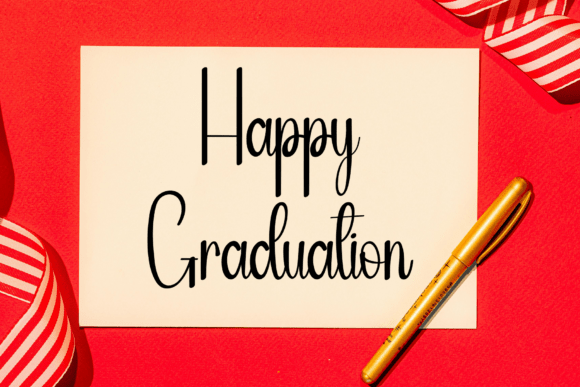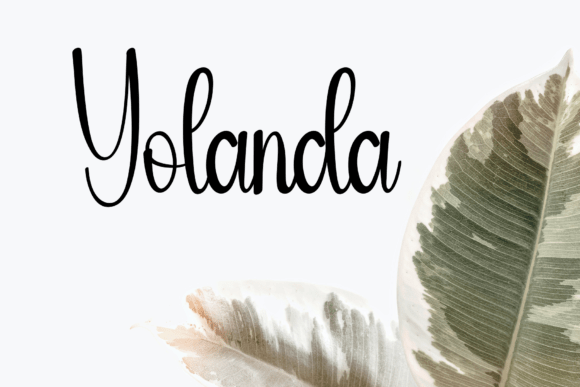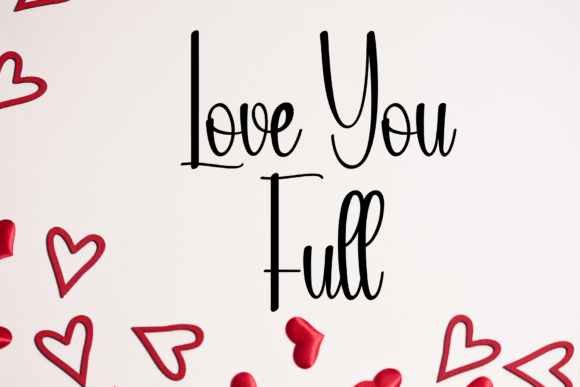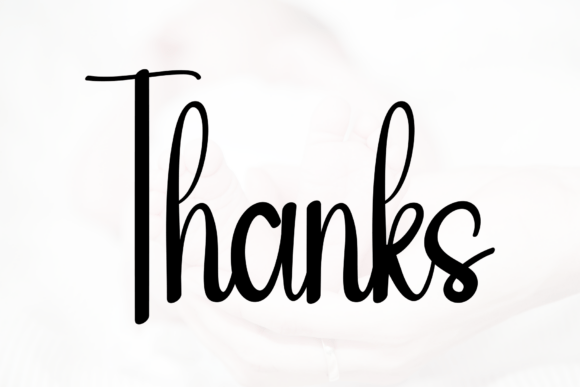
Introducing Blanket Font: The Ultimate Choice for Elegant yet Casual Designs
Are you a designer or crafter looking for a font that exudes a sense of luxury and elegance while still maintaining a casual and relaxed feel? Look no further than Blanket Font, a beautiful handwritten font that mimics the look of marker-drawn text. With its sporty and laid-back vibe, Blanket Font is perfect for a wide range of design applications, from branding and logos to wedding supplies, greeting cards, and marketing promotions.
The Characteristics of Blanket Font
Blanket Font is a unique and versatile typeface that boasts a number of distinctive characteristics. Its handwritten style gives it a personal and approachable feel, making it ideal for designs that require a touch of warmth and personality. The font’s marker-drawn aesthetic adds a sporty and modern twist, making it perfect for designs that require a bit of edge.
One of the standout features of Blanket Font is its relaxed and casual feel. Unlike more formal fonts, Blanket Font has a laid-back vibe that makes it perfect for designs that require a bit of personality and whimsy. At the same time, the font’s elegant lines and smooth curves ensure that it still looks sophisticated and refined.
Uses for Blanket Font
- Branding and Logos: Use Blanket Font to create a unique and memorable logo that reflects your brand’s personality and style.
- Wedding Supplies: Add a touch of elegance and whimsy to your wedding stationery, invitations, and decorations with Blanket Font.
- Greeting Cards: Create beautiful and personalized greeting cards for any occasion with Blanket Font.
- Fashion and Lookbooks: Use Blanket Font to add a touch of sophistication and glamour to your fashion designs and lookbooks.
- Marketing Promotions: Make your marketing materials stand out with Blanket Font’s unique and eye-catching style.
Why Choose Blanket Font?
- Unique Style: Blanket Font has a unique and distinctive style that will set your designs apart from the crowd.
- Versatility: Blanket Font is versatile and can be used for a wide range of design applications.
- Elegant yet Casual: Blanket Font strikes the perfect balance between elegance and casualness, making it perfect for designs that require a bit of sophistication and whimsy.
- Easy to Read: Despite its handwritten style, Blanket Font is easy to read and understand, making it perfect for designs that require a clear and concise message.
Tips for Using Blanket Font
- Use it sparingly: While Blanket Font is beautiful, it can be overwhelming if used too much. Use it sparingly to add a touch of elegance and whimsy to your designs.
- Pair it with other fonts: Blanket Font pairs well with other fonts, so don’t be afraid to experiment with different combinations.
- Experiment with colors: Blanket Font looks great in a variety of colors, so don’t be afraid to experiment and find the perfect hue for your design.